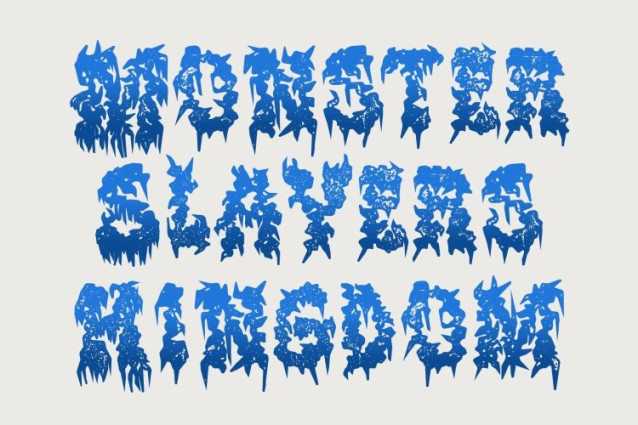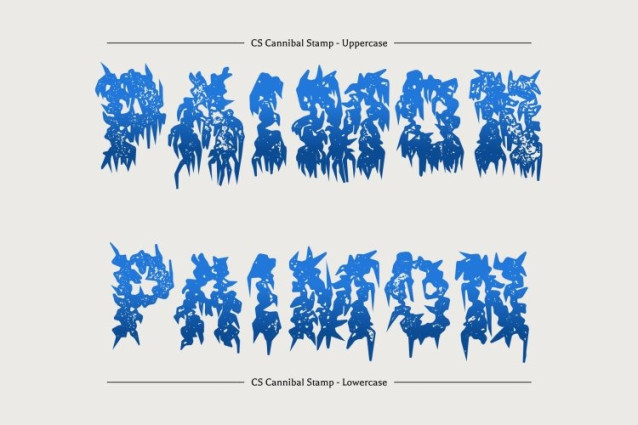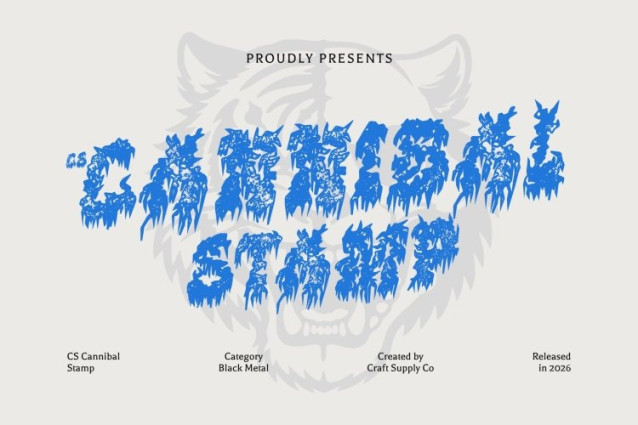
CS Cannibal Stamp Font
CS Cannibal Stamp Font – This is a black metal display font designed to capture the raw intensity and dark mysticism of extreme metal aesthetics, enhanced with a gritty stamp effect. Its sharp, aggressive strokes and distorted letterforms reflect chaos and rebellion, while the textured stamp treatment introduces a worn, ink-pressed appearance that intensifies its underground character.
Jagged Forms with Distressed Stamp Character
The letterforms feature thorn-like textures, jagged edges, and chaotic structures reminiscent of twisted branches and occult symbols. The stamp effect adds rough, distressed surfaces and uneven ink textures, creating the impression of aged prints or stamped metal graphics. This combination amplifies the font’s brutal and eerie visual impact.
Perfect for Extreme and Gothic Visuals
This font thrives in dark, atmospheric design environments such as metal band logos, album covers, horror posters, and gothic-themed artwork. Its wild, untamed structure combined with vintage-like stamp distressing makes it ideal for visuals that embrace darkness, rebellion, and intense artistic expression.
Raw Expression for Underground Aesthetics
Intentionally challenging to read yet visually unforgettable, this font embodies the uncompromising spirit of black metal culture. The fusion of chaotic typography and rough stamped texture delivers a powerful symbol of defiance, making it a perfect choice for designers who want their work to feel extreme, mysterious, and unapologetically bold.